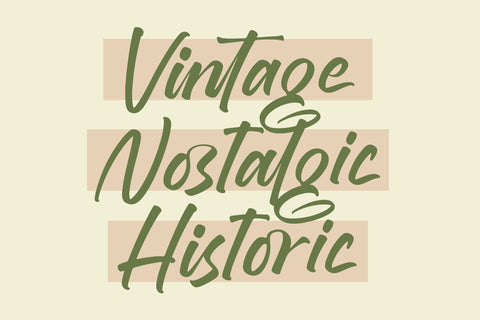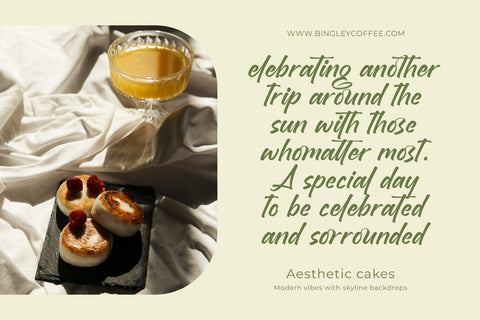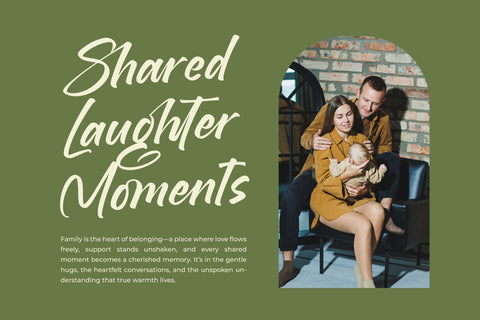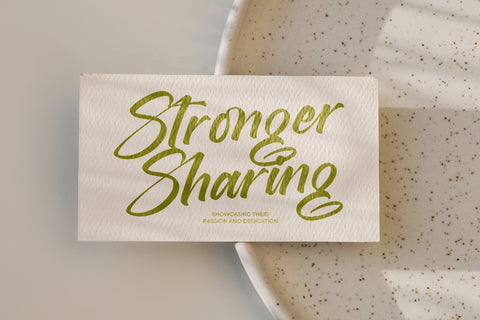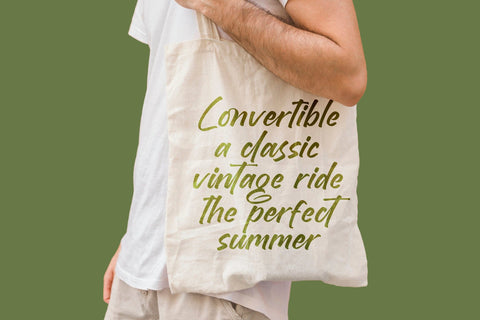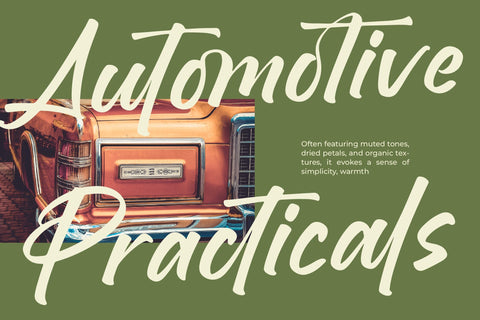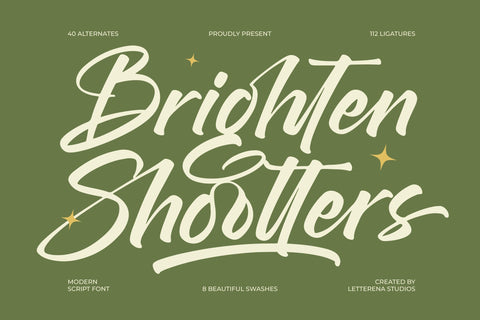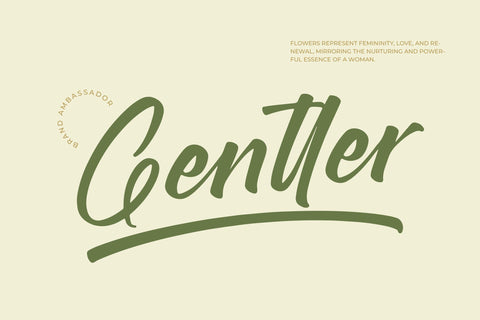
Brighten Shootters - Modern Script Font
Brighten Shootters - Modern Script Font , from Letterena, is a Luxury Script font, suitable for any projects such as: logos, branding projects, homeware designs, product packaging, mugs, quotes, posters, shopping bags, t-shirts, book covers, name card, invitation cards, greeting cards, label, photography, watermark, special events, and all your other luxury and beautiful projects that need a Luxury Script taste.
- 112 Ligature 40 Alternate & 08 Swashes